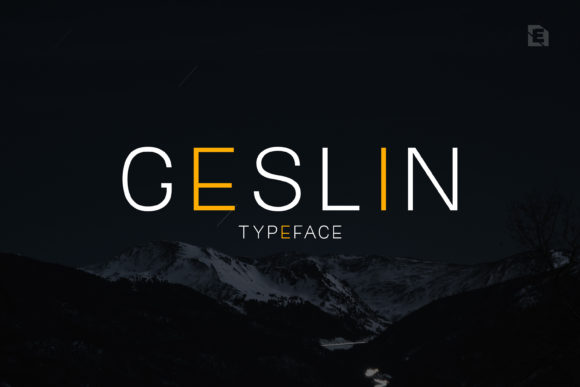
Dive into the realm of Geslin, a minimal display font that's poised to transform your digital creations into captivating masterpieces. With its inherent versatility, Geslin effortlessly adapts to a myriad of design endeavors, adding a touch of elegance and sophistication to each one. Unleash your creativity and witness how Geslin elevates your projects to new heights.
Welcome to the world of Geslin, a display font that radiates simplicity and poise. Its carefully crafted characters exude a minimalist charm that seamlessly integrates into a vast spectrum of design projects. Whether you're crafting a captivating website, designing a striking poster, or creating an eye-catching social media campaign, Geslin stands ready to elevate your vision.
Geslin's inherent versatility knows no bounds. Its clean lines and refined curves lend themselves effortlessly to headlines, logos, branding materials, and even product packaging. Let Geslin be your creative compass, guiding you towards designs that resonate with your audience and leave a lasting impression.
Step into the spotlight with Geslin, the font that empowers you to make a statement. Its distinct personality shines through in every letterform, captivating your audience and demanding attention. Embrace the power of Geslin to craft designs that ignite emotions, spark conversations, and leave an unforgettable mark on the digital landscape.
Unleash your creativity and embrace the endless possibilities that Geslin presents. Let its minimalist aesthetics and versatile nature fuel your imagination and propel your designs to new heights. Experience the transformative power of Geslin today and unlock a world of captivating creations.